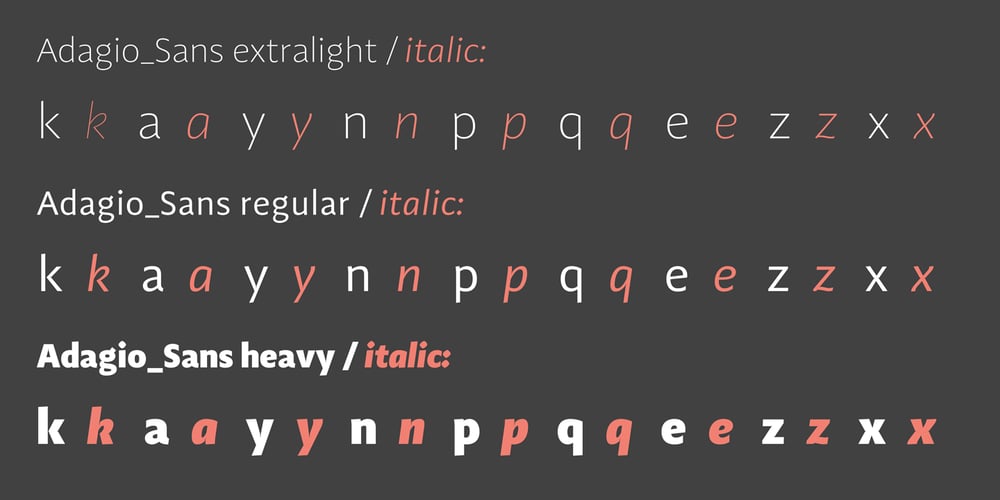
Adagio Sans Font Family was designed by Mateusz Machalski and published by Machalski. Adagio Sans contains 17 styles and family package options. The Adagio Family is a part of Mateusz Machalski’s, Warsaw Academy of fine arts Master Degree Diploma in multimedia studio, conducted by Professor Stanisław Wieczorek and his brave PHD Jakub Wróblewski. Adagio is a modern type family. It consists of 3 main varieties: sans, serif and slab. Each one of them has it’s own “true italic” set. All of the styles together have over 400 characters in 9 different thicknesses. The Adagio family was created mostly for company identities. The idea was to create a wide range of different varieties which are stylistically consistent. Adagio Sans – In its character, inspired by classical English typefaces. Sharp chamfers add a strong character. Thanks to delicate contrast and proportions of capitals, this variety has features of humanist grotesque. Thanks to large x length, and highly stretched descenders, it also works correct in longer text, while it’s strong detail is good for headlines. The Sans version is a great complement for Adagio Serif and Adagio Slab .